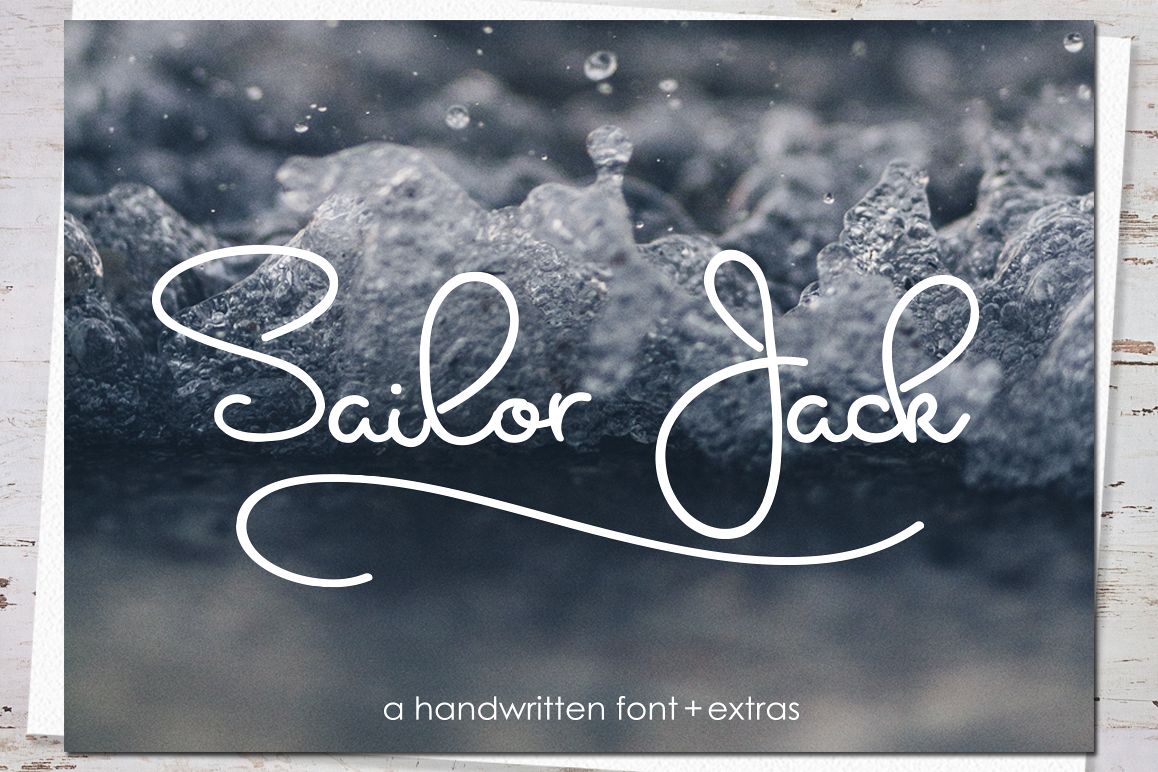
Sailor Jack Script
Sailor Jack Script - it's a modern handwritten script with extras.
Sailor Jack Extras includes extras from a to z.
Multilingual support: ( ÀÁÂÃÄÅÇÈÉÊËÌÍÎÏÐÑÒÓÔÕÖØÙÚÛÜÝß ĀĂĄĆĈĊČĎĐĒĔĖĘĚĜĞĠĢĤĦĪĬĮİĴĶĹĻĽĿŁŃŅŇŌŎŐŒŔŖŘŚŜŞŠŢŤŦŨŪŬŮŰŲ ŴŶŸŹŻŽ)
Ligatures: lt, th